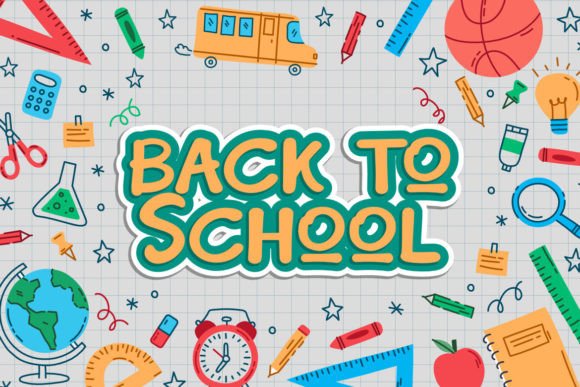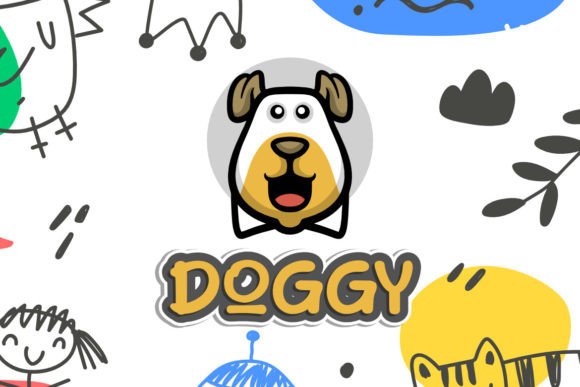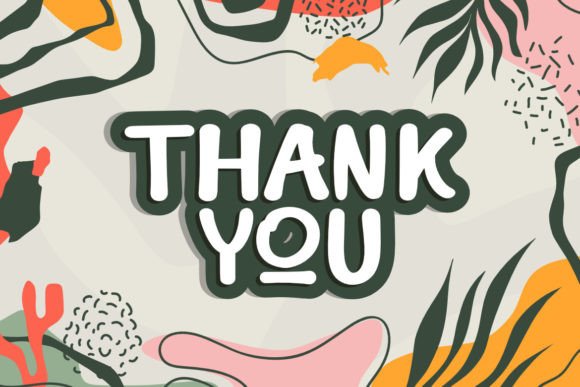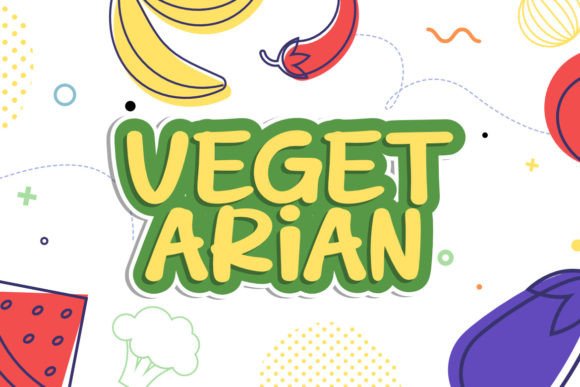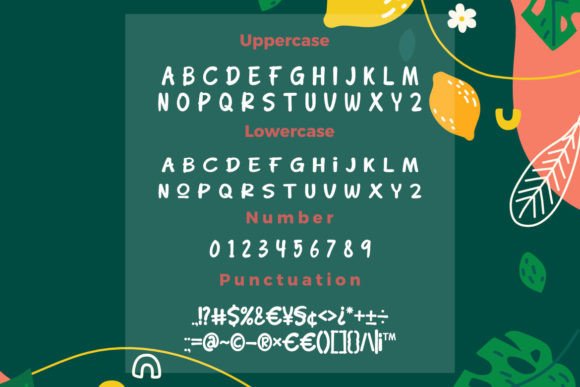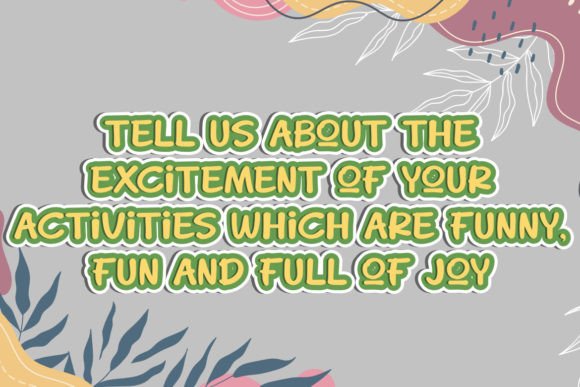
Dremben: A Playful Font for Creative Expression
In the world of typography, fonts play a crucial role in conveying messages, evoking emotions, and creating visual identities. For designers, crafters, and creative enthusiasts, finding the right font can make all the difference in bringing their ideas to life. This is where Dremben comes in – a playful font designed to add a touch of whimsy and fun to various creative projects.
What is Dremben Font?
Dremben is a carefully crafted font that boasts a high premium quality level, making it an excellent choice for a wide range of applications. From flyers and quotes to posters, banners, packaging, merchandise, logotypes, and more, Dremben is the perfect companion for designers and crafters looking to add a dash of personality to their work.
Key Features of Dremben Font
• Playful and Whimsical Design: Dremben’s unique design makes it stand out from other fonts. Its playful and whimsical nature adds a touch of fun and creativity to any project.
• High-Quality and Premium: With its high premium quality level, Dremben ensures that your designs look professional and polished.
• Versatile and Adaptable: Dremben can be used across various mediums, from digital platforms to print materials, making it a versatile addition to your font collection.
• Easy to Read and Understand: Despite its playful nature, Dremben remains easy to read and understand, ensuring that your message is conveyed effectively.
Use Cases for Dremben Font
Dremben’s versatility makes it suitable for a wide range of creative projects, including:
• Flyers and Brochures: Add a touch of playfulness to your marketing materials with Dremben.
• Quotes and Inspirational Messages: Use Dremben to create visually appealing quotes and inspirational messages that grab attention.
• Posters and Banners: Create eye-catching posters and banners with Dremben’s unique and playful design.
• Packaging and Merchandise: Add a personal touch to your packaging and merchandise with Dremben’s whimsical font.
• Logotypes and Branding: Use Dremben to create a unique and memorable brand identity.
Why Choose Dremben Font?
With so many fonts available, why choose Dremben? Here are a few reasons:
• Unique and Distinctive: Dremben’s playful design sets it apart from other fonts, ensuring your designs stand out.
• High-Quality and Professional: Dremben’s premium quality level ensures your designs look professional and polished.
• Easy to Use and Adapt: Dremben is easy to integrate into your creative workflow, making it a convenient choice for designers and crafters.
In conclusion, Dremben is a playful font that offers a unique and creative way to express yourself through design. With its high premium quality level, versatility, and ease of use, Dremben is an excellent addition to any designer’s or crafter’s font collection. Whether you’re working on a flyer, quote, poster, banner, packaging, merchandise, logotype, or any other creative project, Dremben is sure to bring a touch of whimsy and fun to your work.